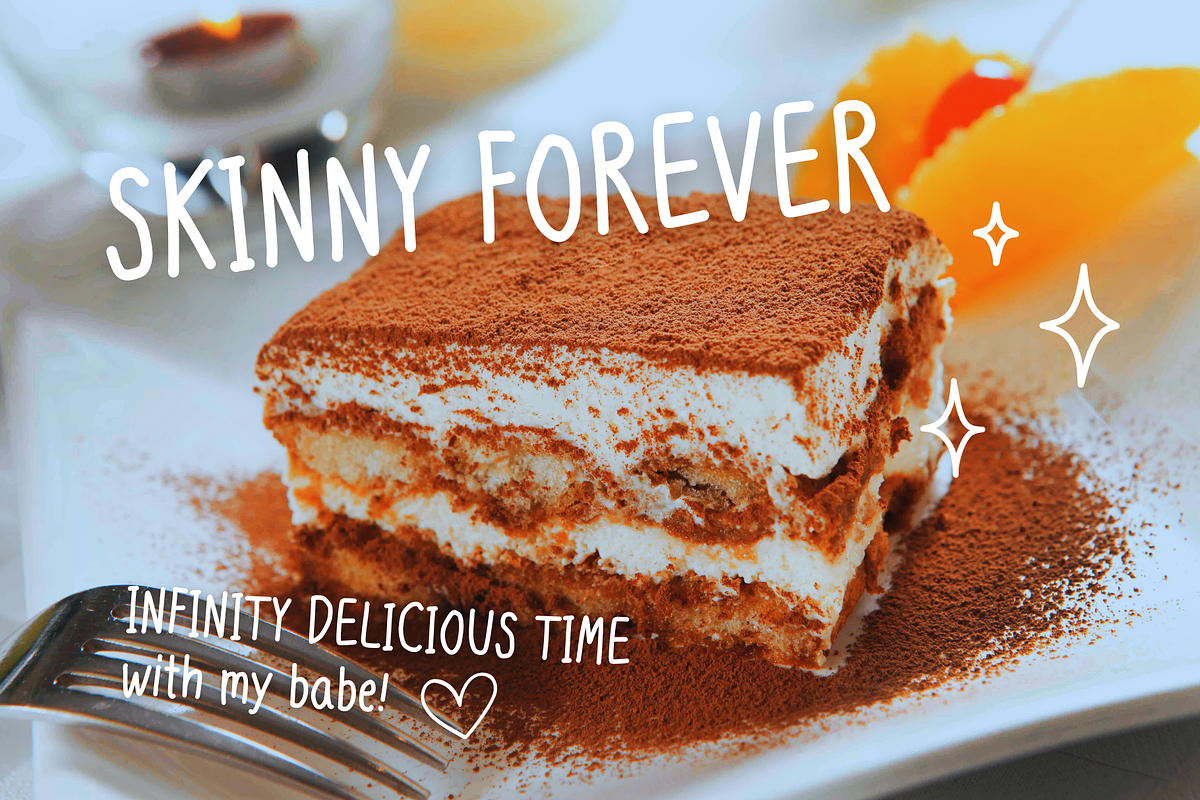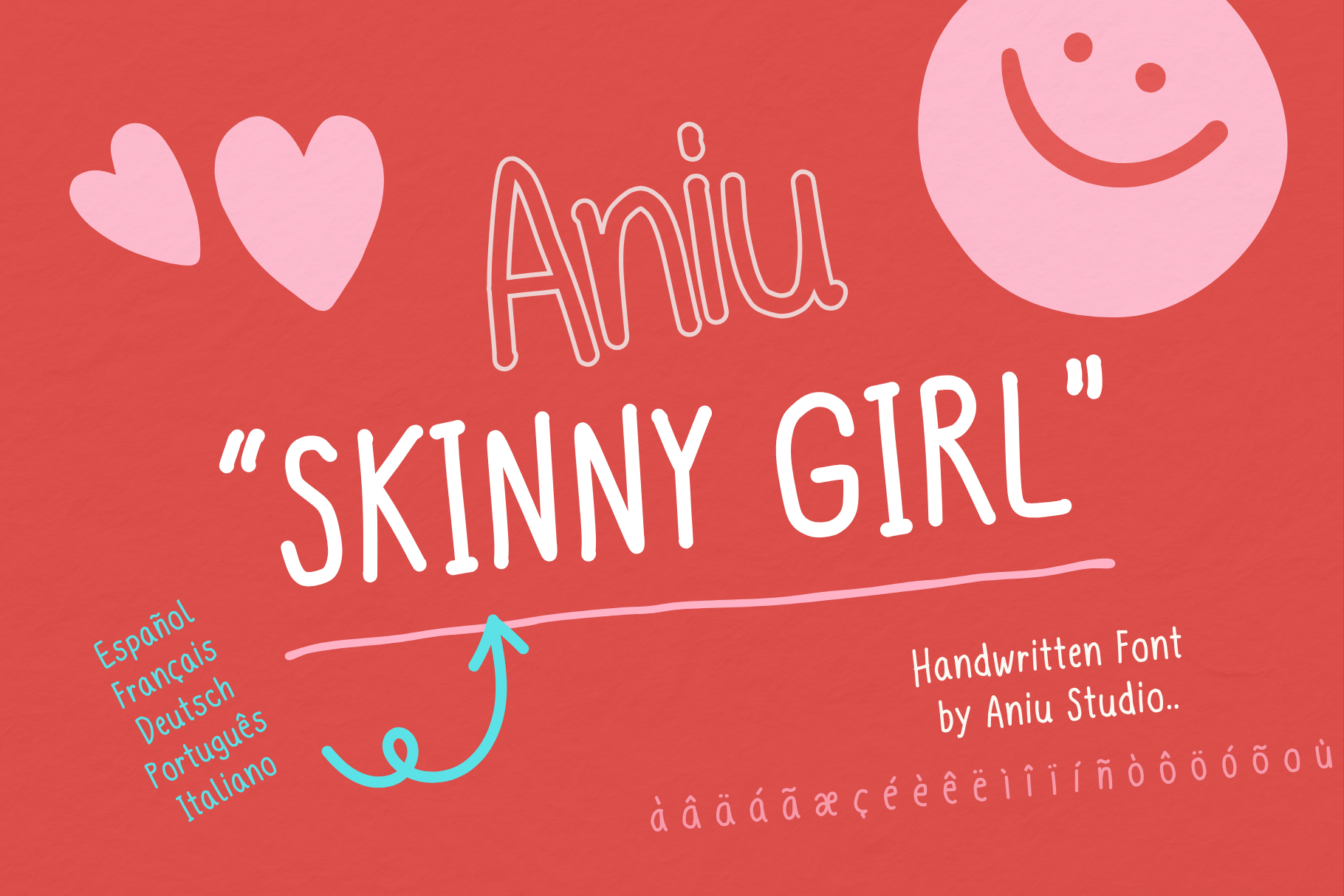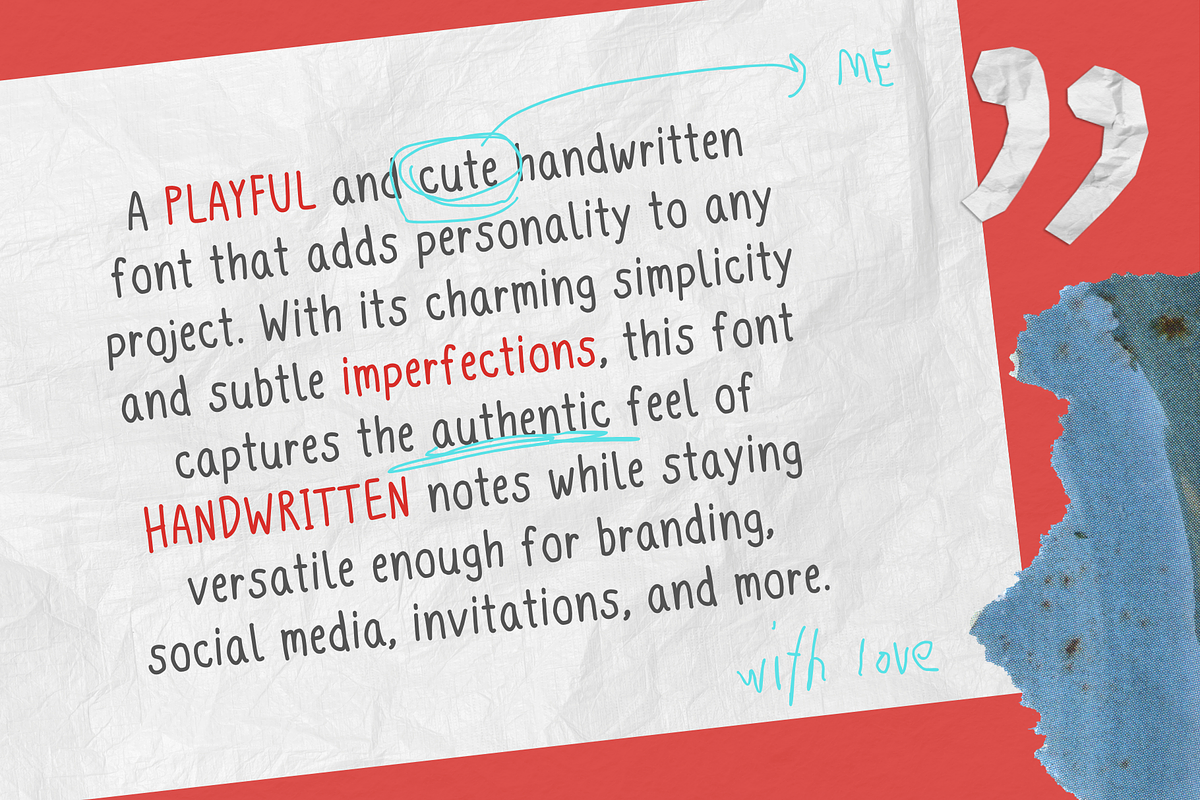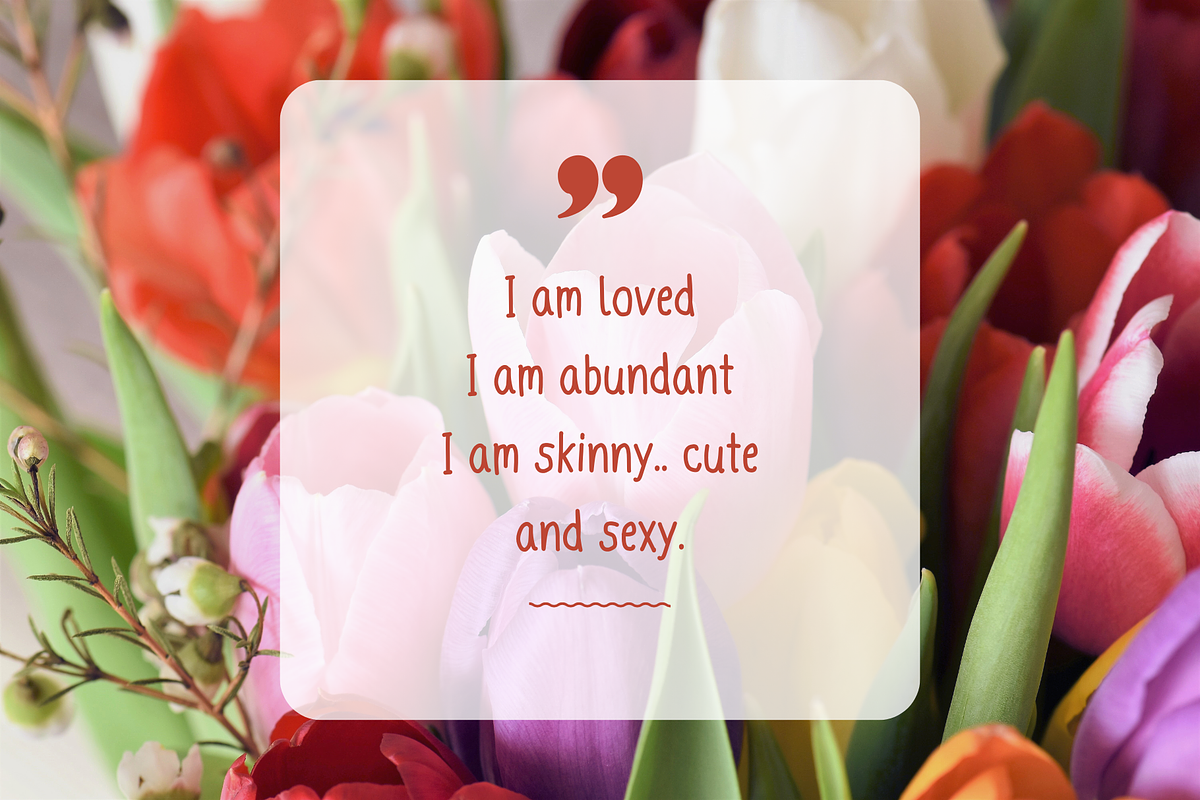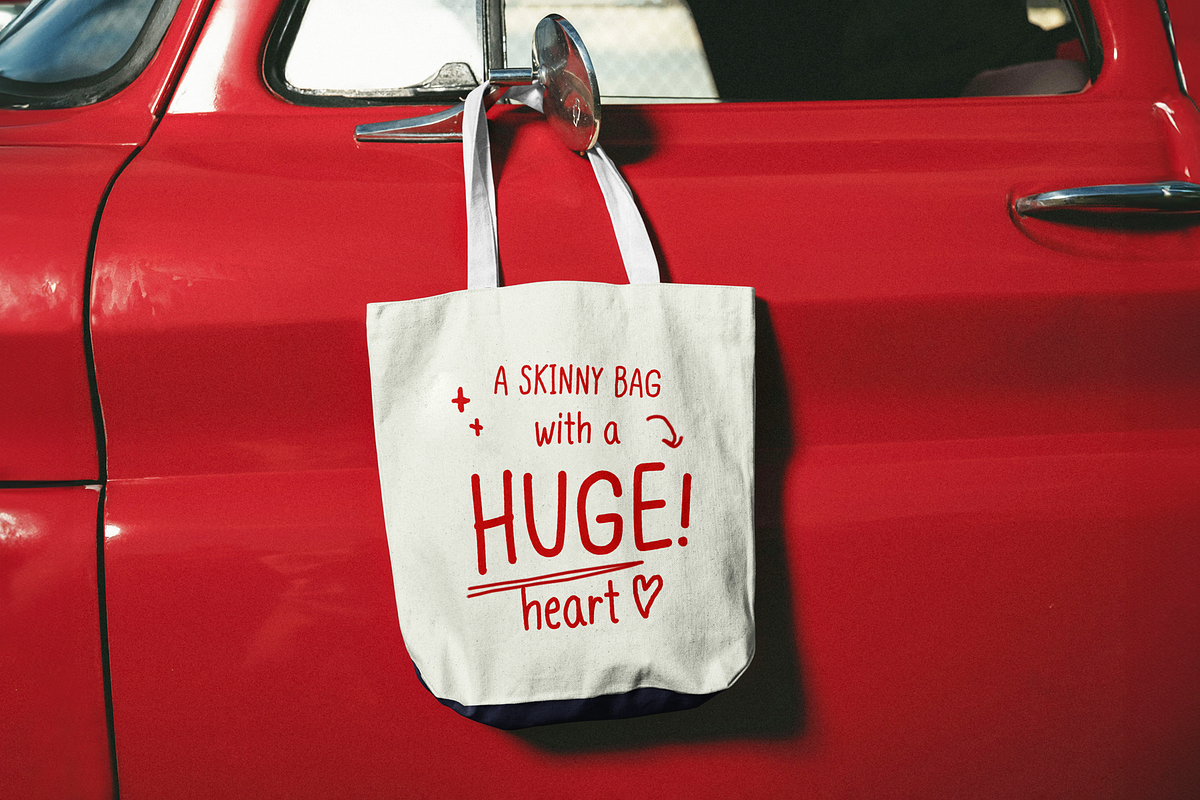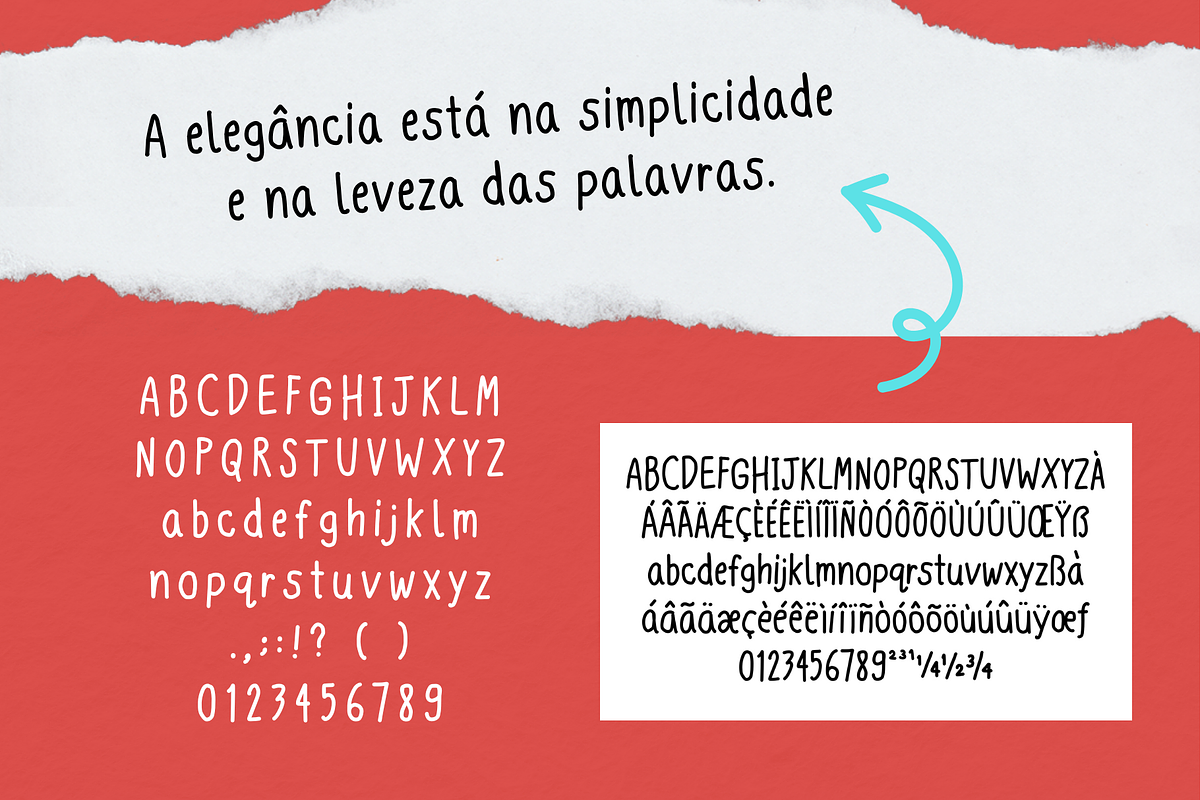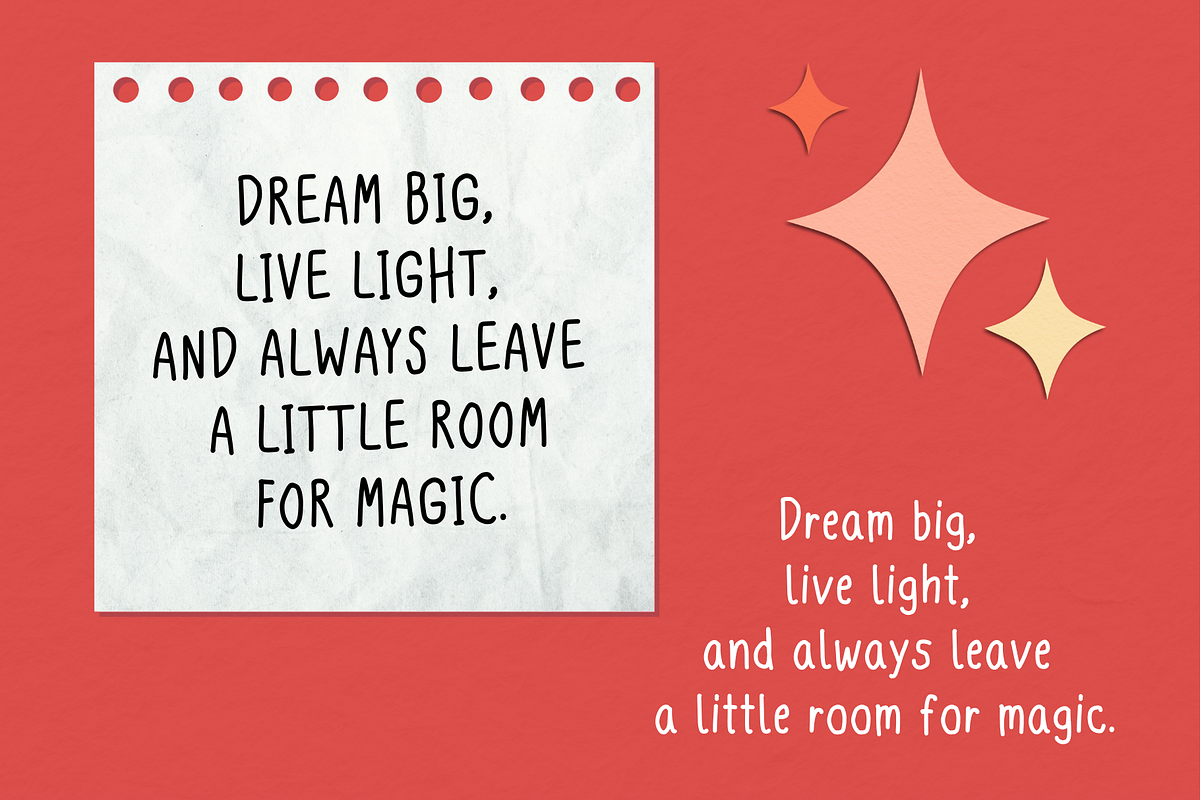
Aniu "Skinny Girl" Handwritten Font
A playful and cute handwritten font that adds personality to any project! This font captures the authentic feel of handwritten notes while staying versatile for branding, social media, invitations, and more.
Multilingual Support: Available in Spanish, French, German, Portuguese, and Italian – perfect for global designs.
Extensive Glyph Set: Includes uppercase and lowercase letters, numbers, punctuation, and special characters with accents (e.g., À Á Ä Ç Ñ Ø Æ Ö ß Œ and more).
Unique Style: Perfect for posters, quotes, packaging, stationery, logos, and other creative projects.
Flexible Pairing: Works beautifully alone or paired with bold display fonts for added flair.
Its lightweight and lively design is perfect for casual, modern, and trendy aesthetics. Whether you're crafting Instagram posts, custom invitations, or branding materials, Aniu Skinny Girl brings your words to life with style, charm, and cuteness!